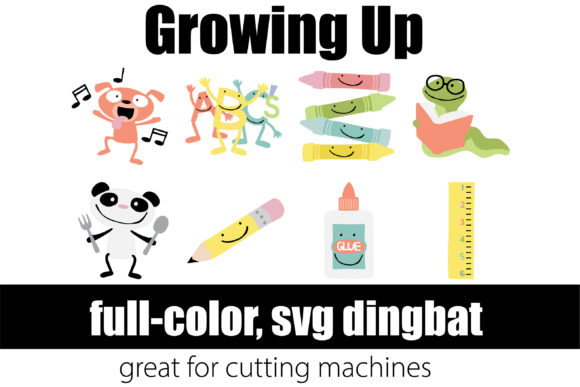
Introducing Growing Up Font - A Delightful Display of Color and Charm!
Dive into a world of cheerful creativity with Growing Up Font, a captivating dingbat font bursting with personality. This full-color marvel is crafted by Illustration Ink, a master of visual enchantment.
Get ready to transform your creative projects with an array of delightful elements and school supplies, all adorned with cheerful faces that spread joy and positivity. Each character dances off the page, inviting you to explore a realm of imagination and expression.
Growing Up Font is the perfect companion for Bible reading, adding a touch of playfulness and whimsy to your spiritual journey. Let the vibrant hues and adorable designs illuminate your words, creating a truly immersive experience.
This extraordinary font seamlessly pairs with the Milestone color font, unlocking endless possibilities for creative harmony. Together, they weave a tapestry of visual magic, bringing your ideas to life with stunning impact.
While color fonts may initially appear as black in non-compatible programs, don't let that deter you. The true brilliance of Growing Up Font unfolds when you type and witness the colors bloom on your screen.